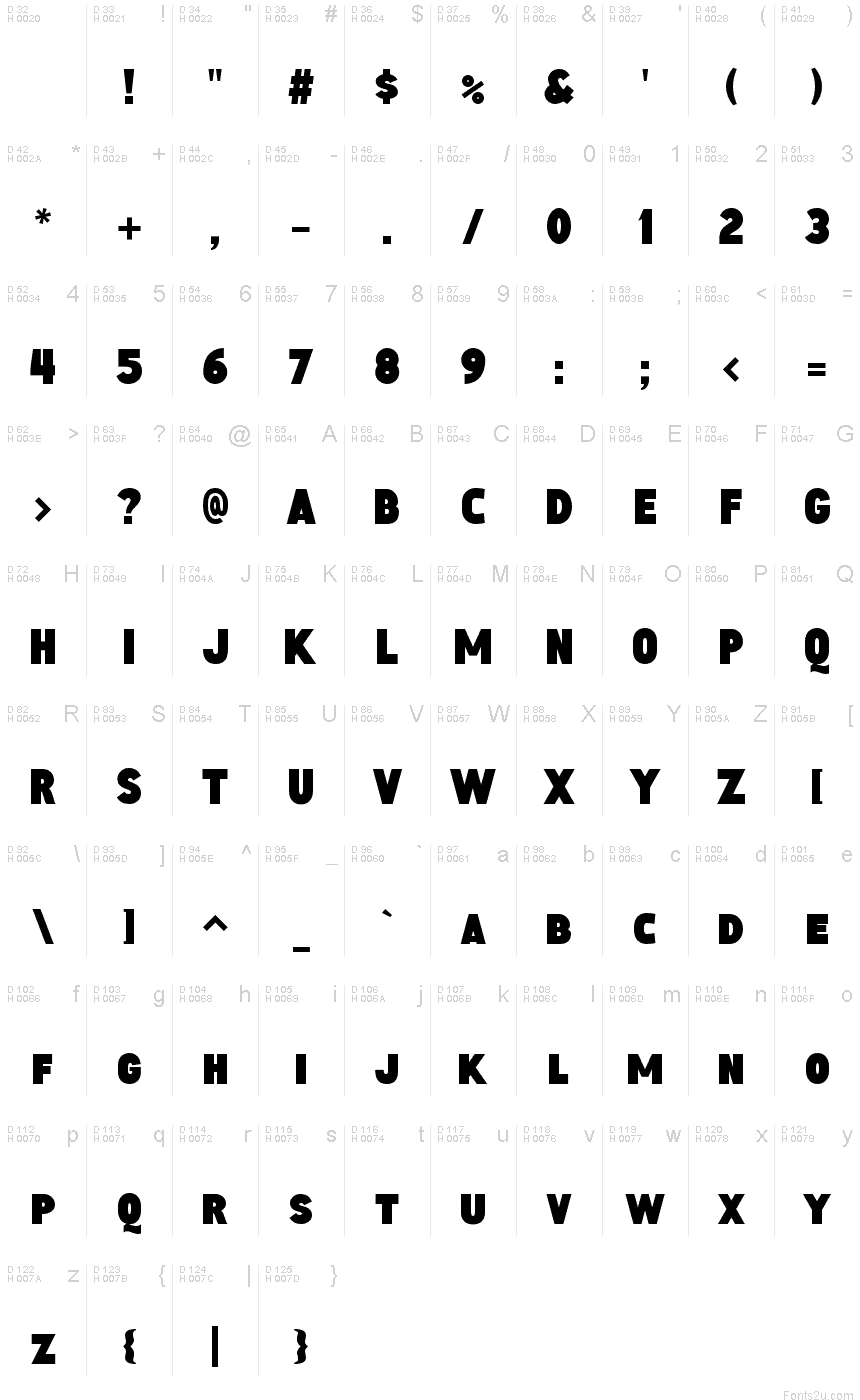
Aguardiente
Aguardiente by Daniel Johnson is a free heavy sans serif with towering capitals and a tightly packed silhouette. Broad vertical strokes, blunt cuts, and compressed curves make the lettering feel forceful, with small interior spaces sharpening its dense texture.
Designers working in music, nightlife, and streetwear will find its emphatic weight useful for posters and merchandise. It also suits sports graphics and event branding with a loud voice. Across these uses, the close-set capitals turn words into banner-like shapes.